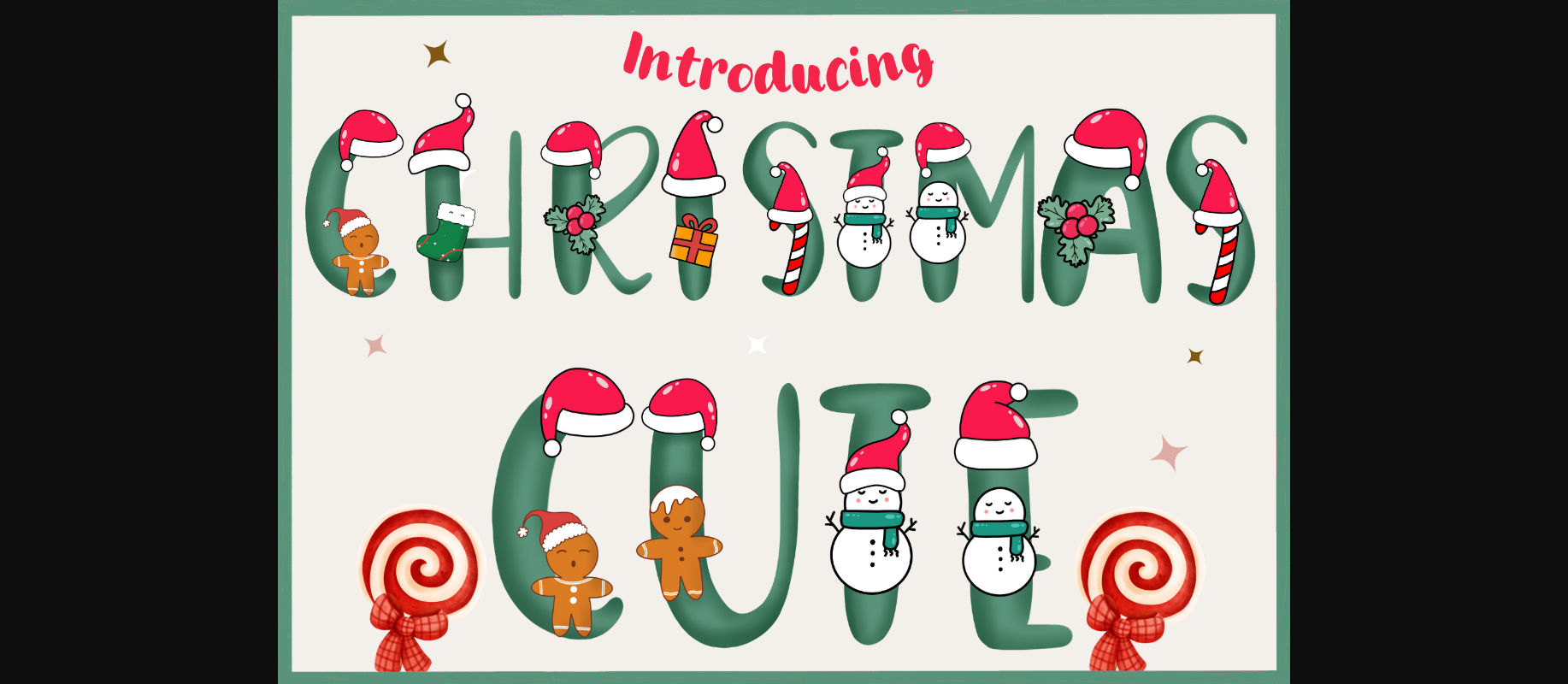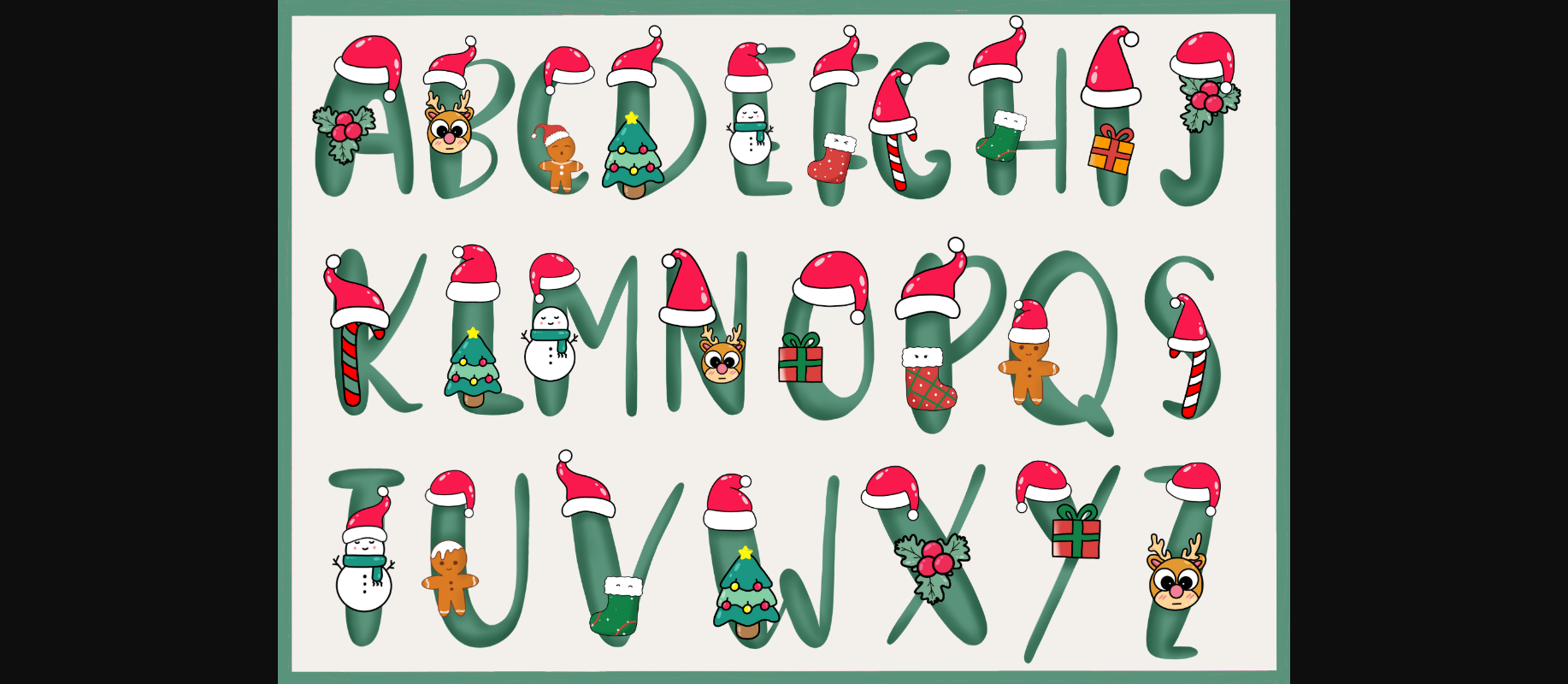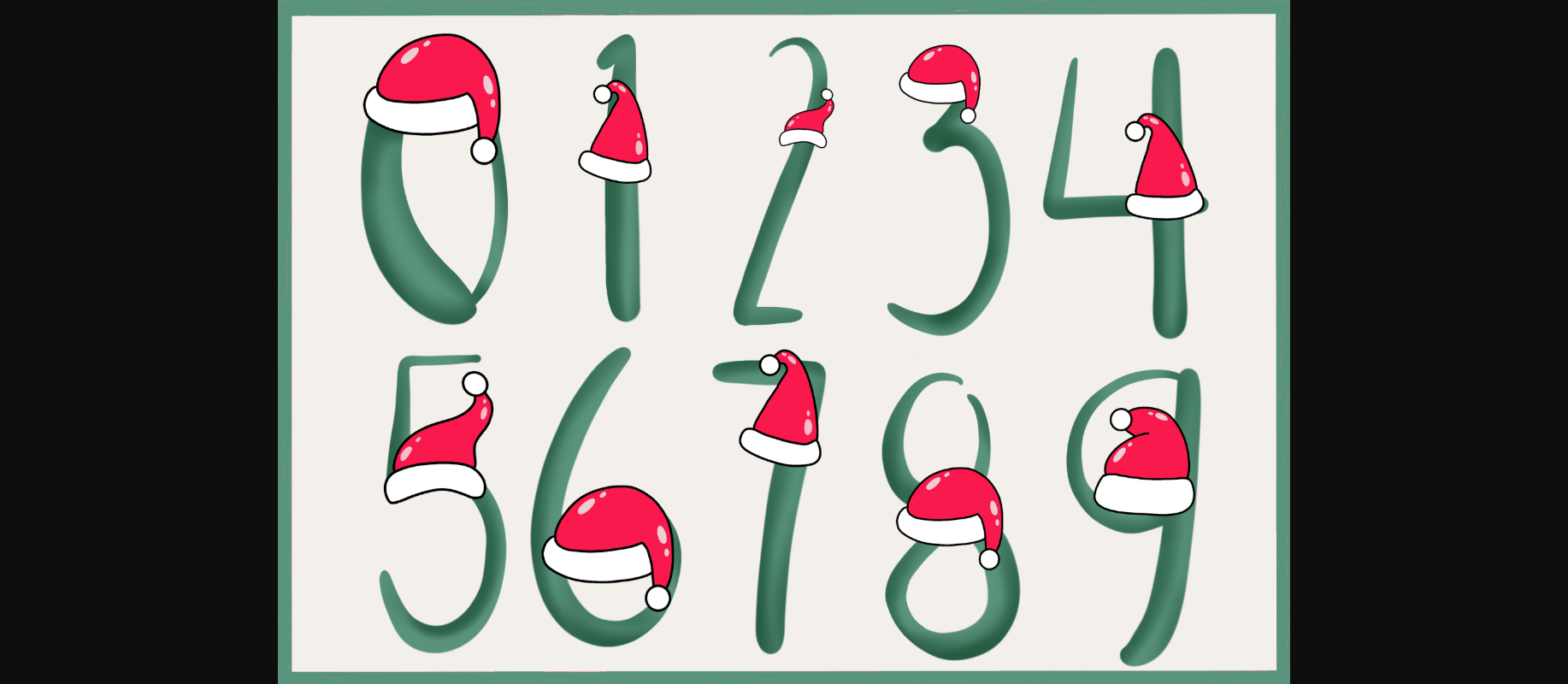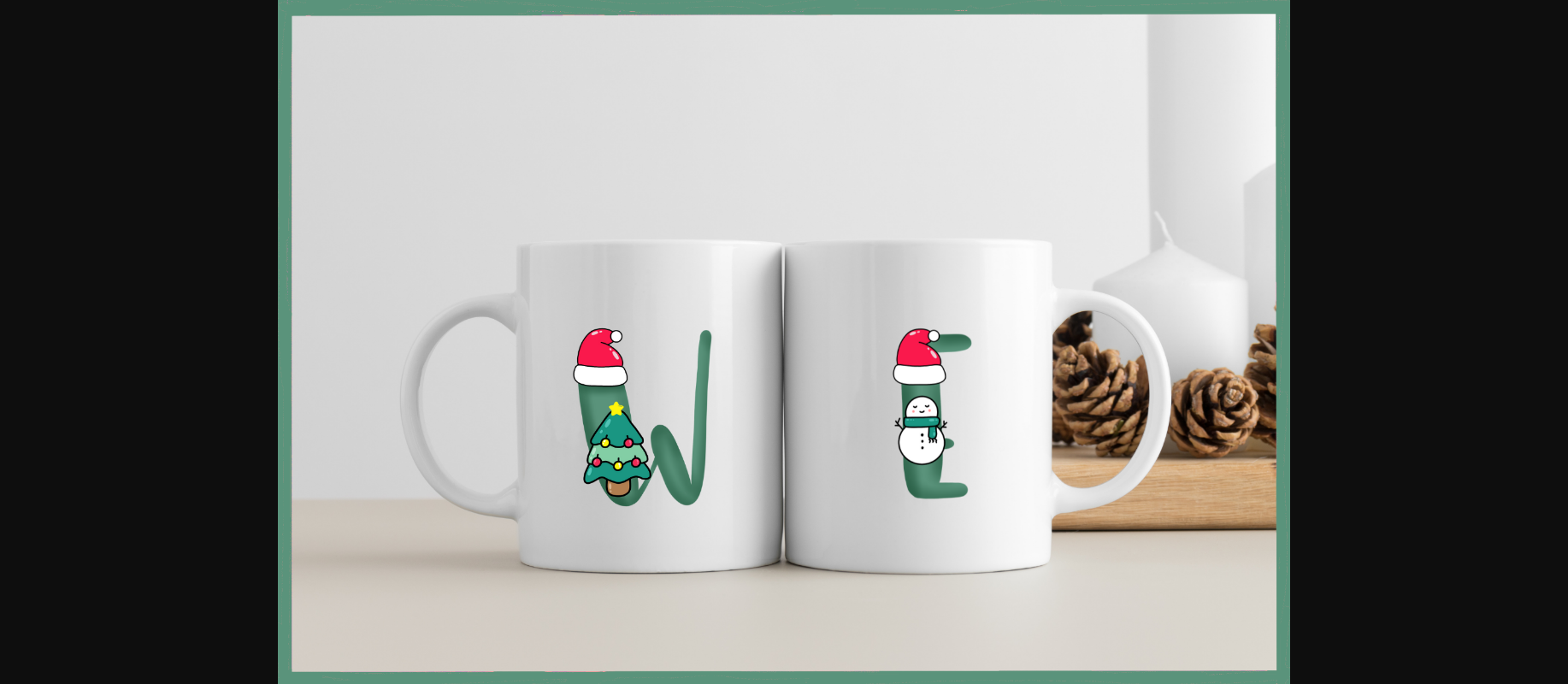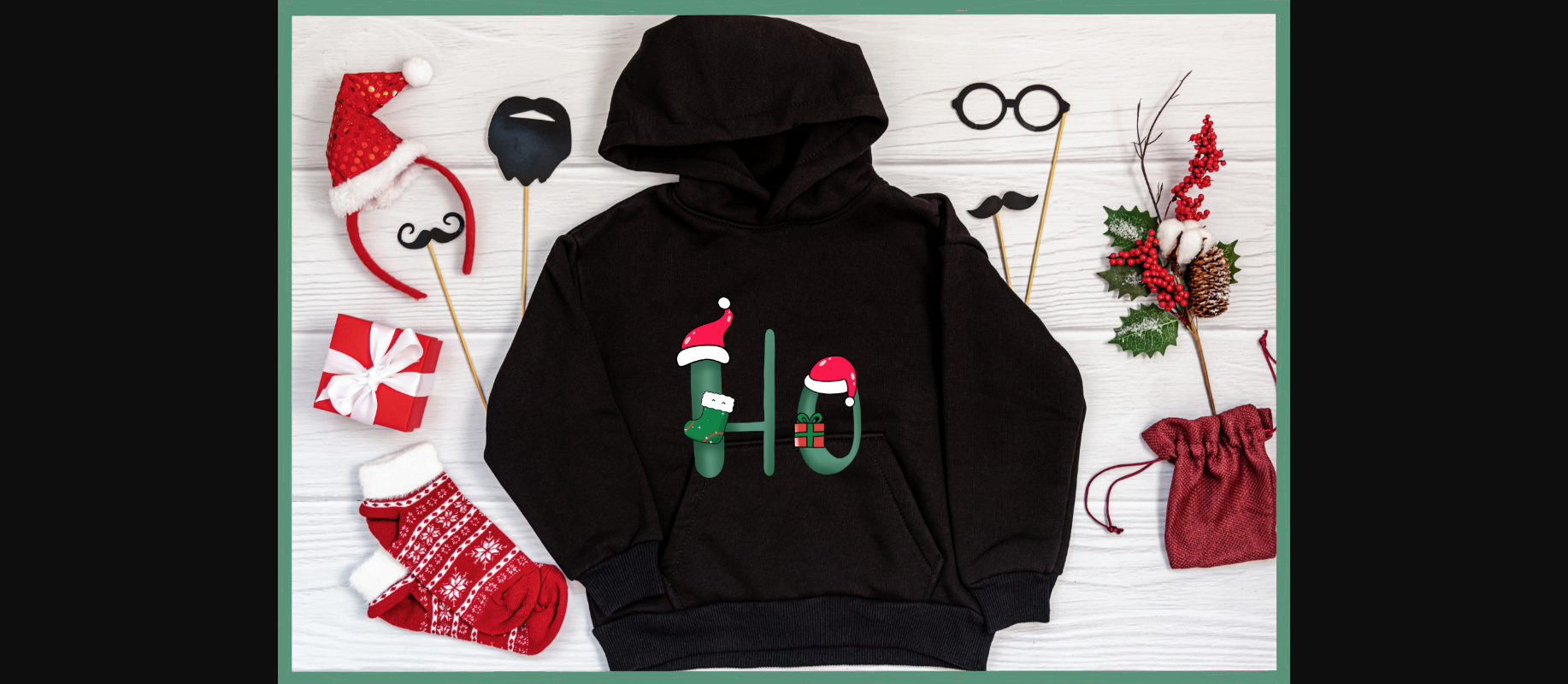
Christmas Cute Font
About Christmas Cute Font
Christmas Cute is an organic and beautiful decorative font, featuring lovely ornaments. No matter the topic, this font will be an incredible asset to your fonts’ library, as it has the potential to elevate any creation.